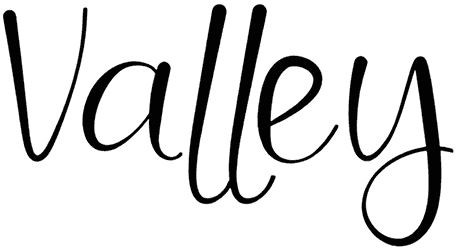
Valley Font
Personal design has made its way into the modern world, and now Valley is a must-have in your toolbox. This handwritten font can be a good starting point for designers who have yet to find a reliable way to communicate with the audience and are looking for a stylish template.
By adding this handwritten font to your branding, magazine, fashion, and social media projects, you can add a spark to them that will make you shine more, even without numbers.